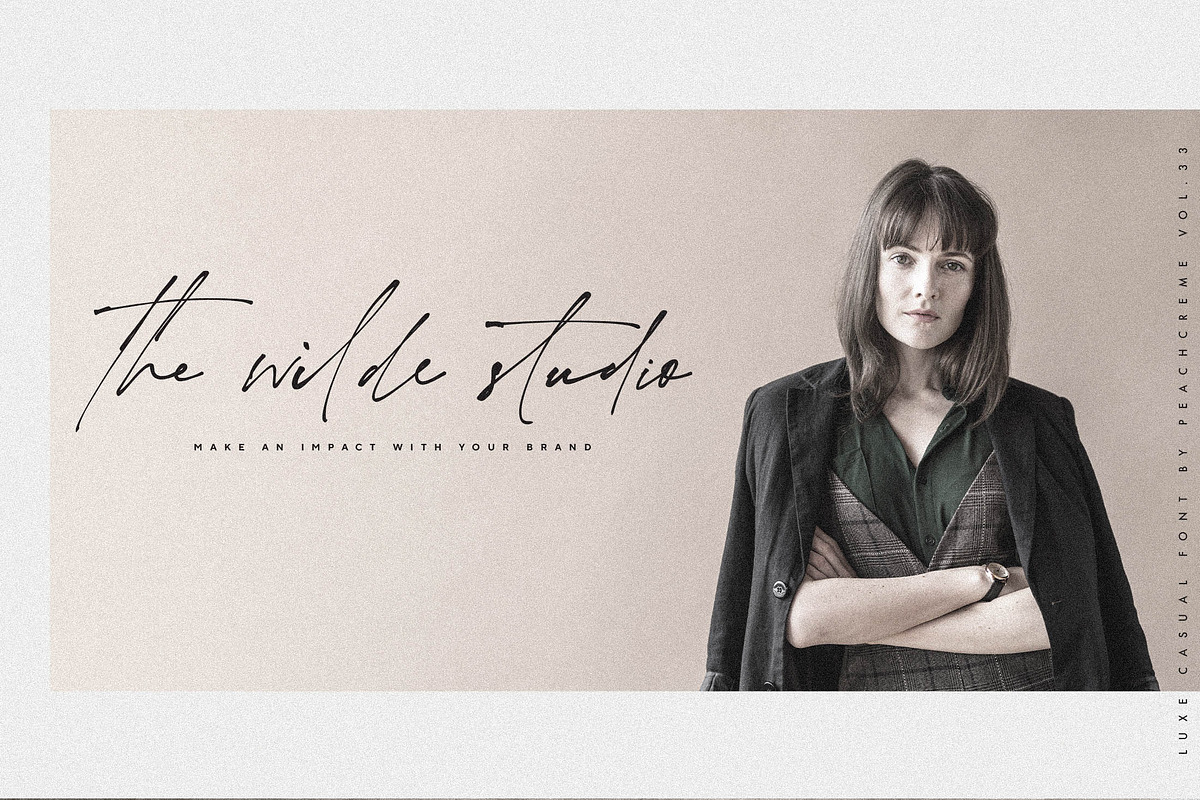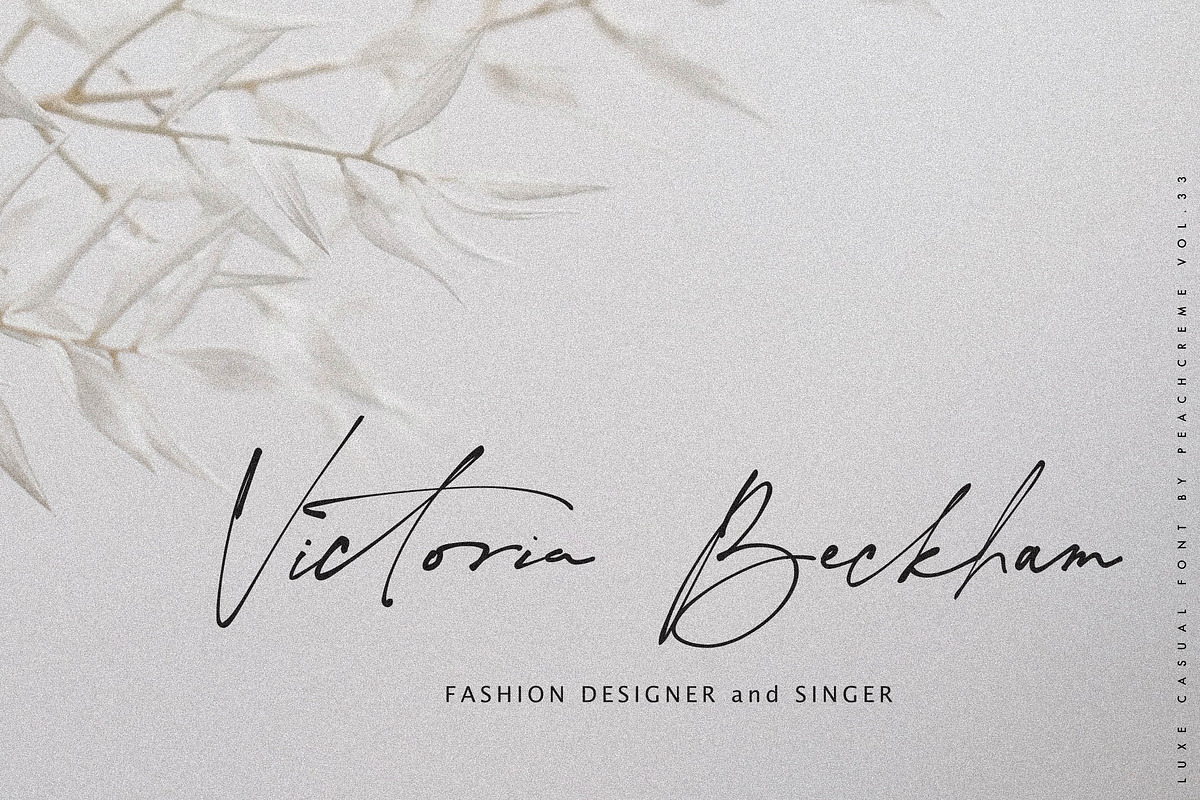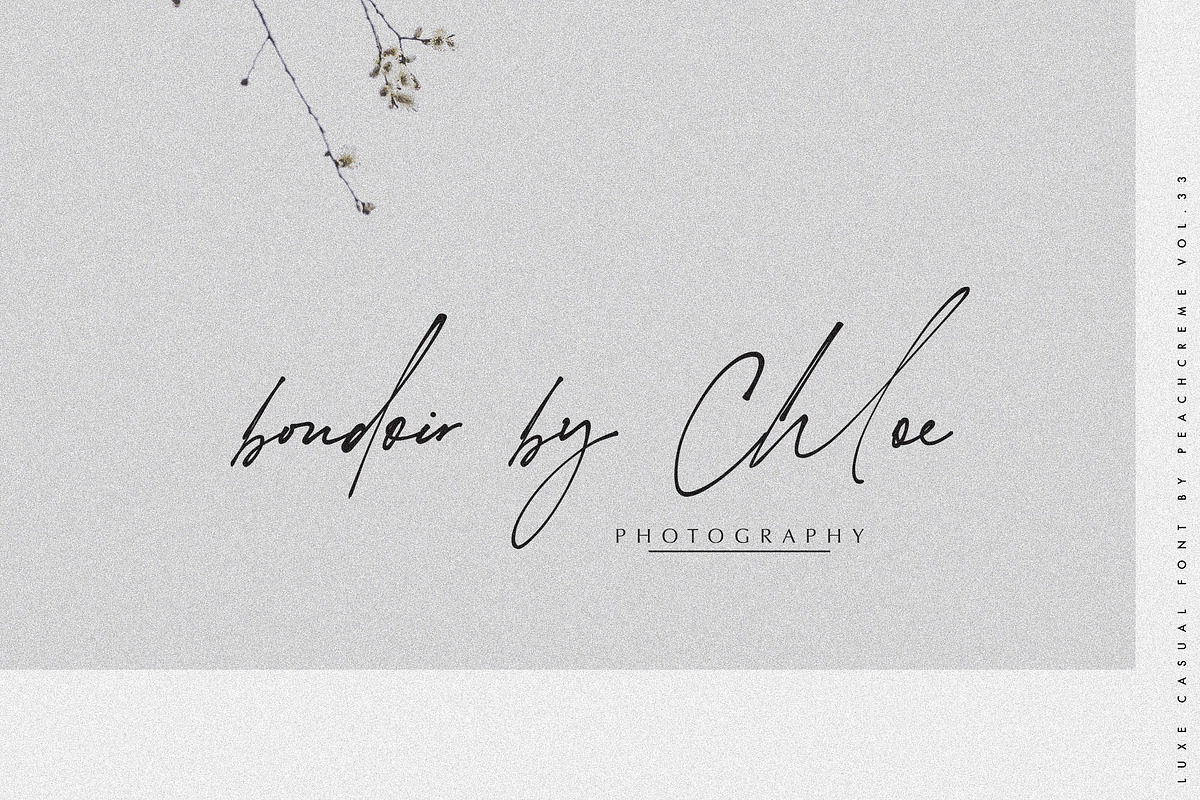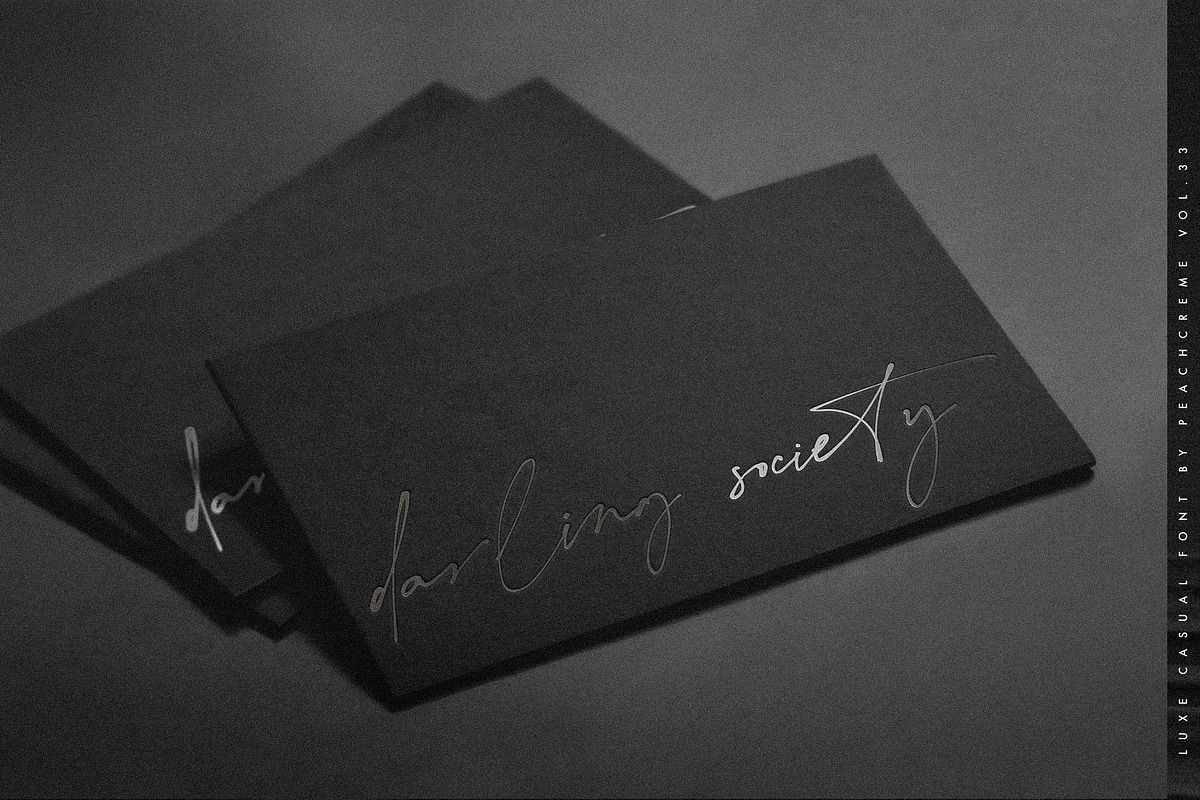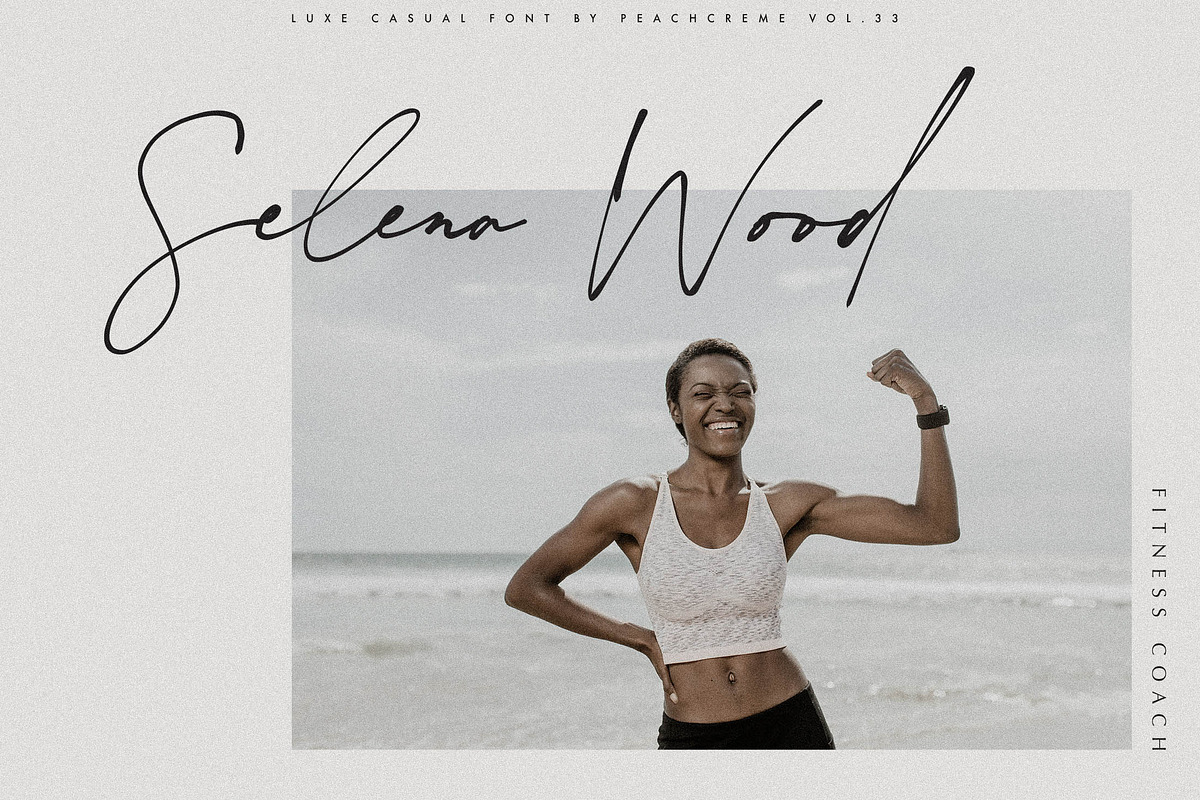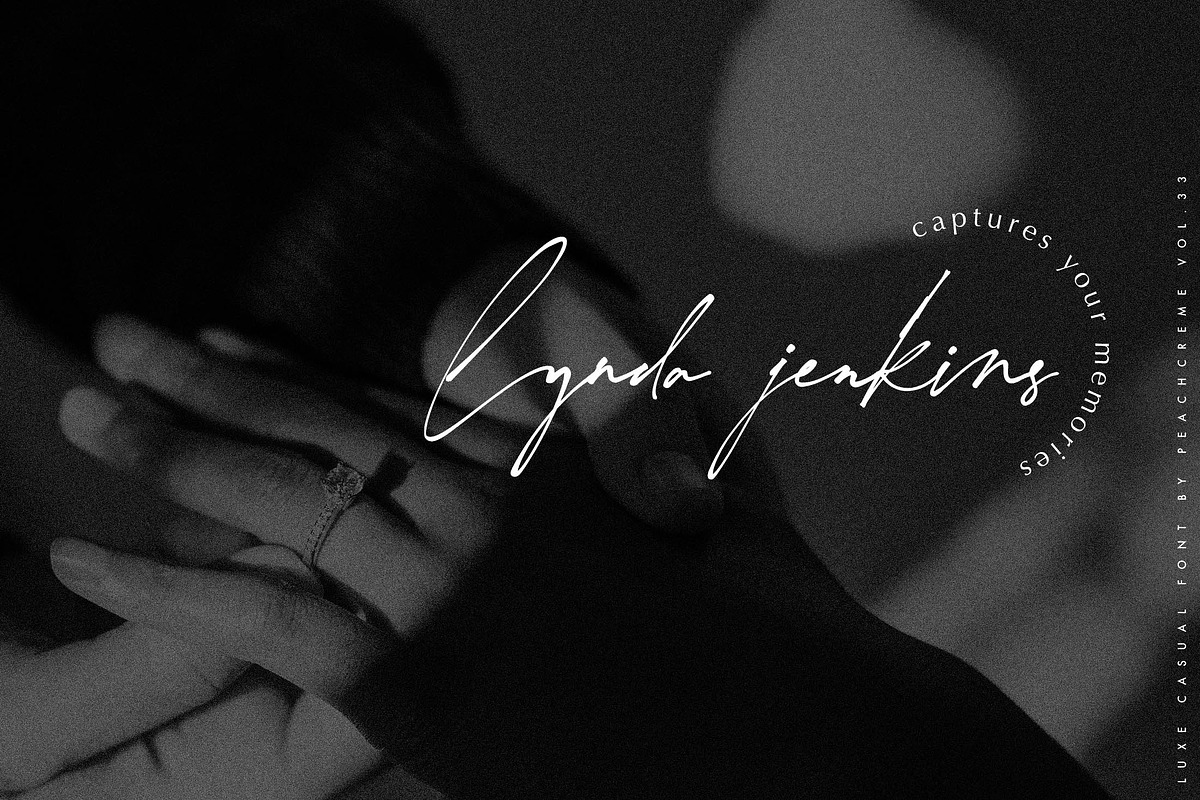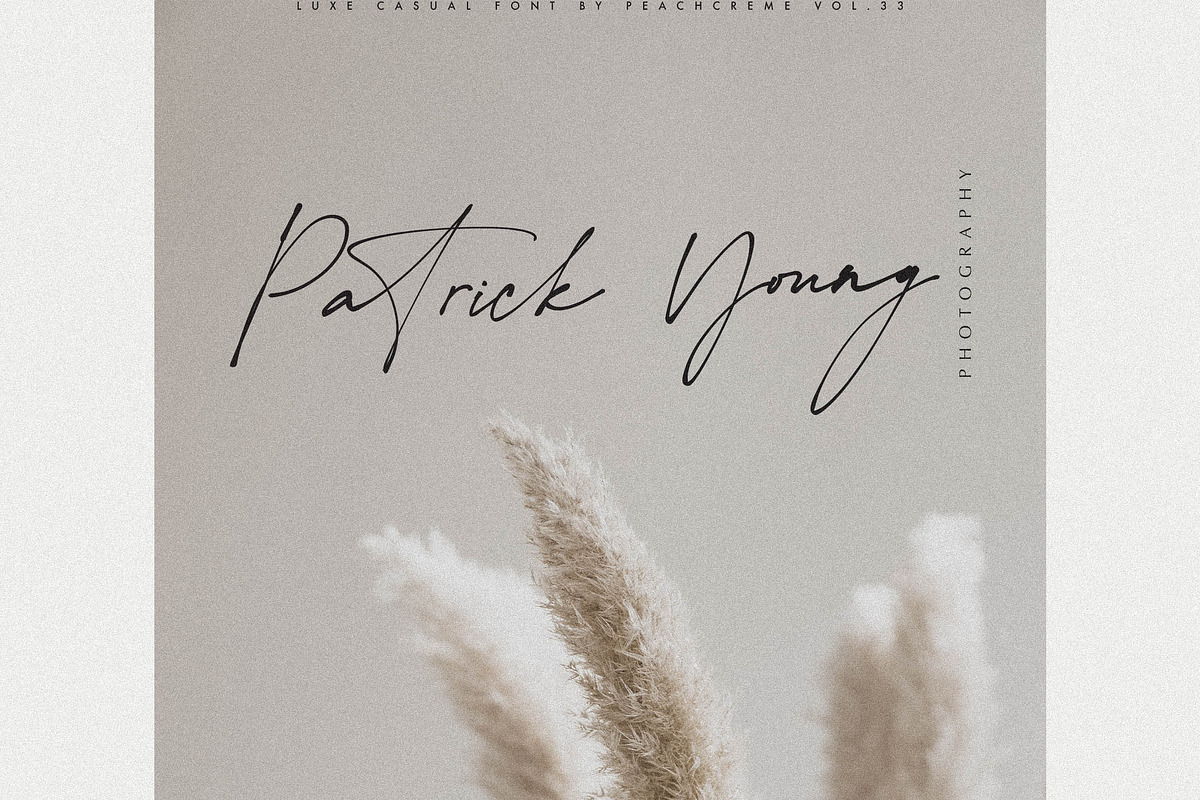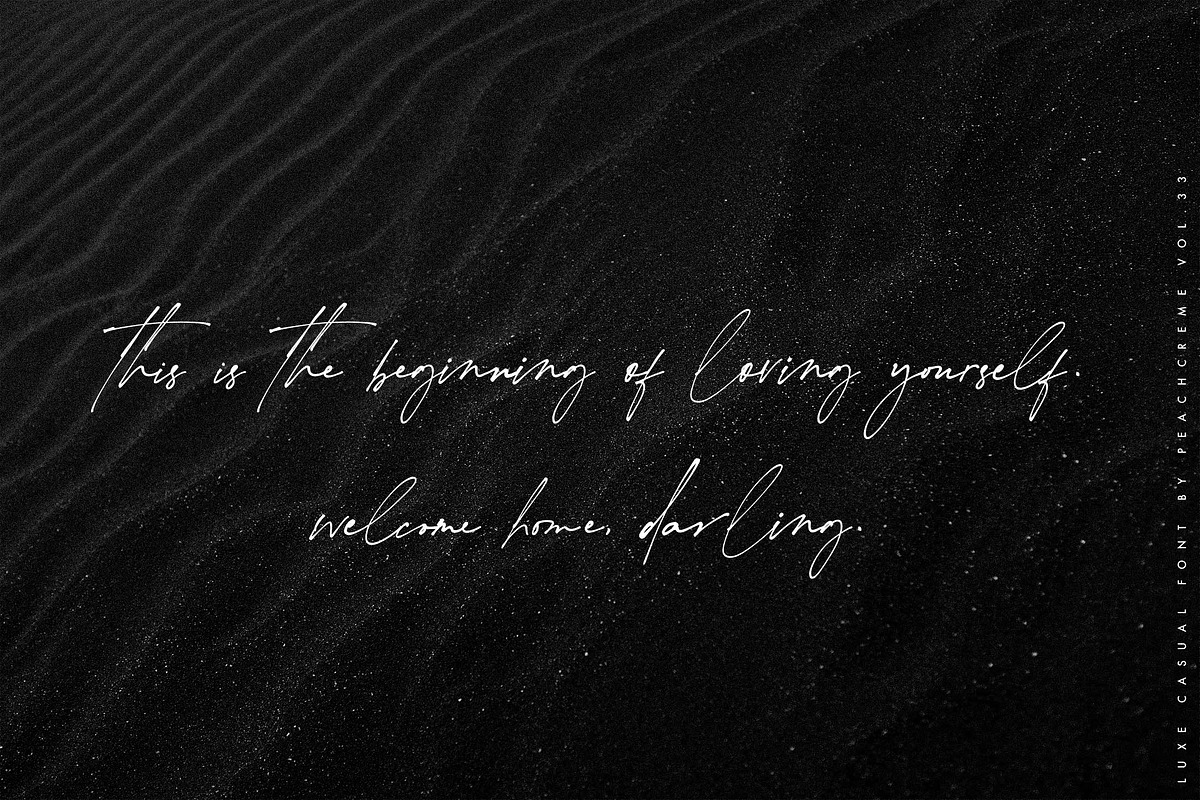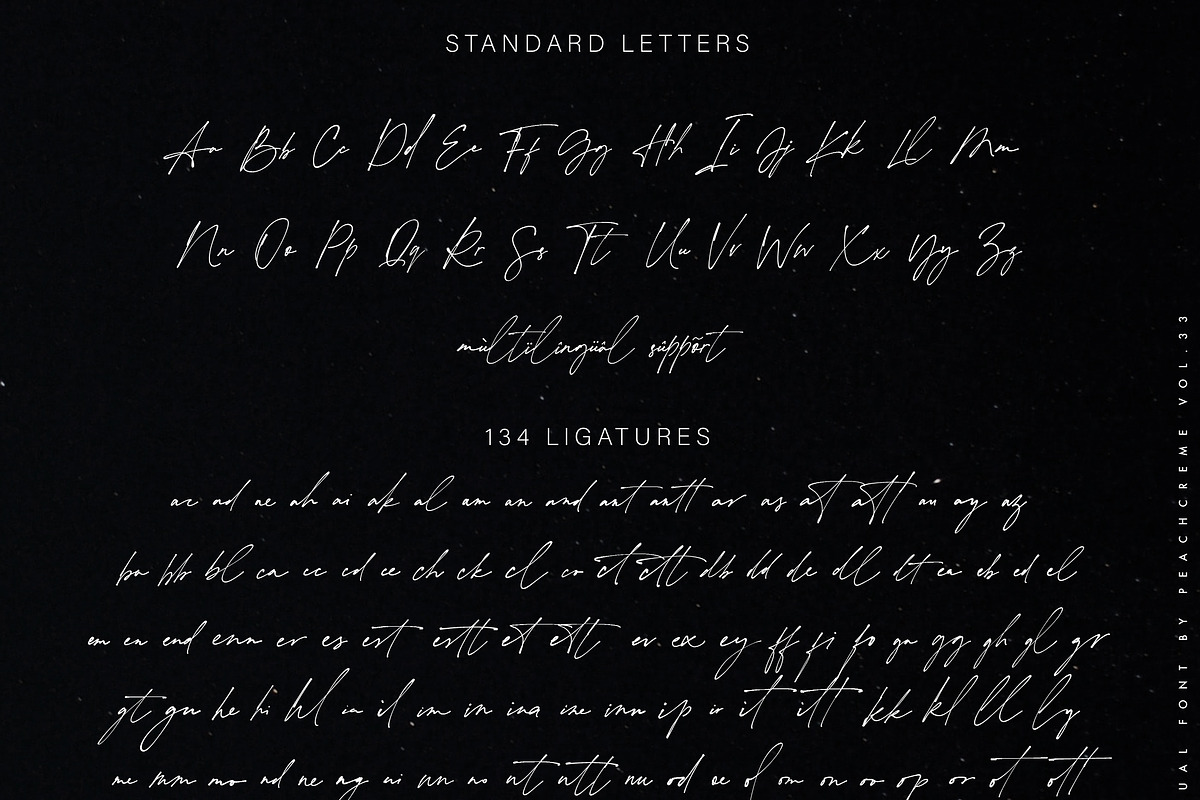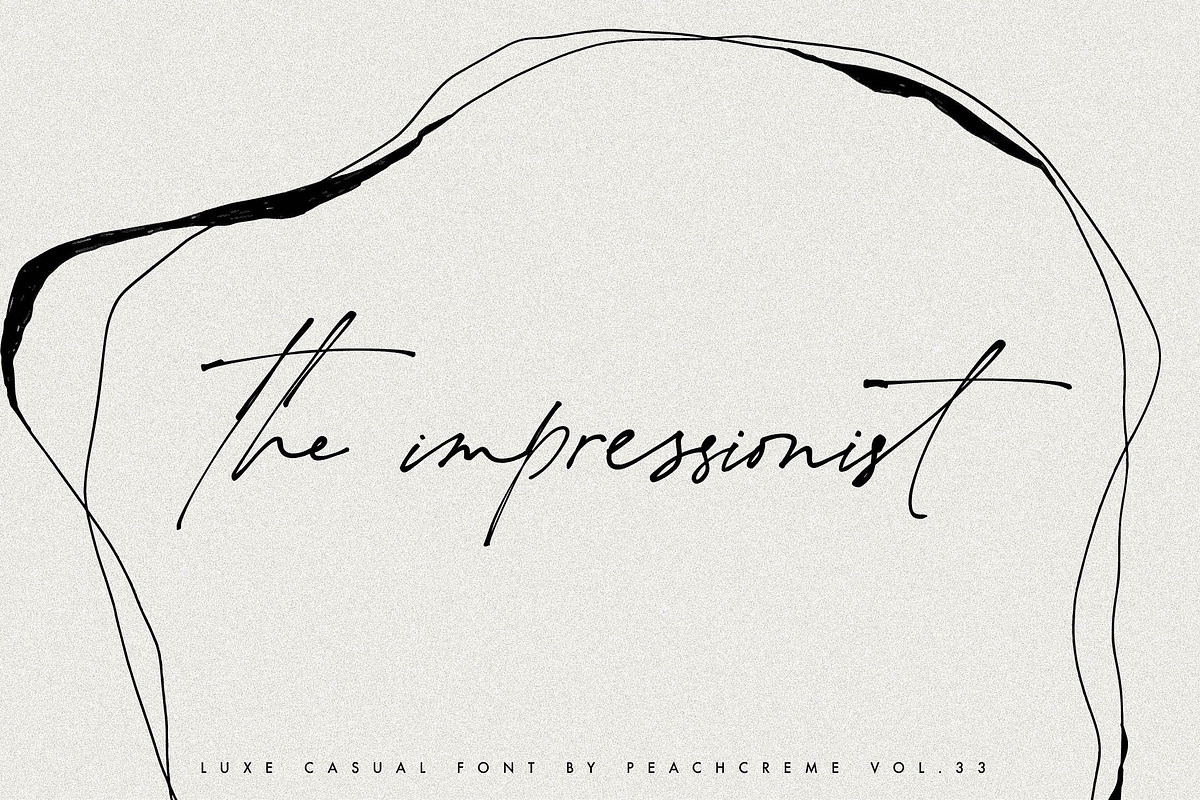
the impressionist // luxe chic font
LUXURY FINE ART TYPOGRAPHY VOL.33
the impressionist. this font is about fleeting vision, a touch of moments. some letters may be illegible, but their shapes arouses emotions. sometimes in design emotions are more important. our brain can uncode the letter shapes.
It includes full set of uppercase and lowercase letters, multilingual symbols, numerals, punctuation and 134 ligatures. The font has smooth wet ink texture.
This font is a great find. I agree with some of the frustration felt by users but ultimately was able to exactly replicate the sample Creative Market shared when testing out the font. A great fit for a non-formal wedding invitation.
Gorgeous font! I was a little confused at first but it was NOT the fault of the creator -- when you type in a phrase to preview on Creative Market, for some reason the preview generates with ligatures and glyphs that are not representative of what you get in the basic character set. So if you like what you see in the preview, and you download the font, and it looks different in your editing program from the preview, chances are what you actually want is tucked away in ligatures and glyphs. Worth the little bit of sleuthing for such an awesome font!